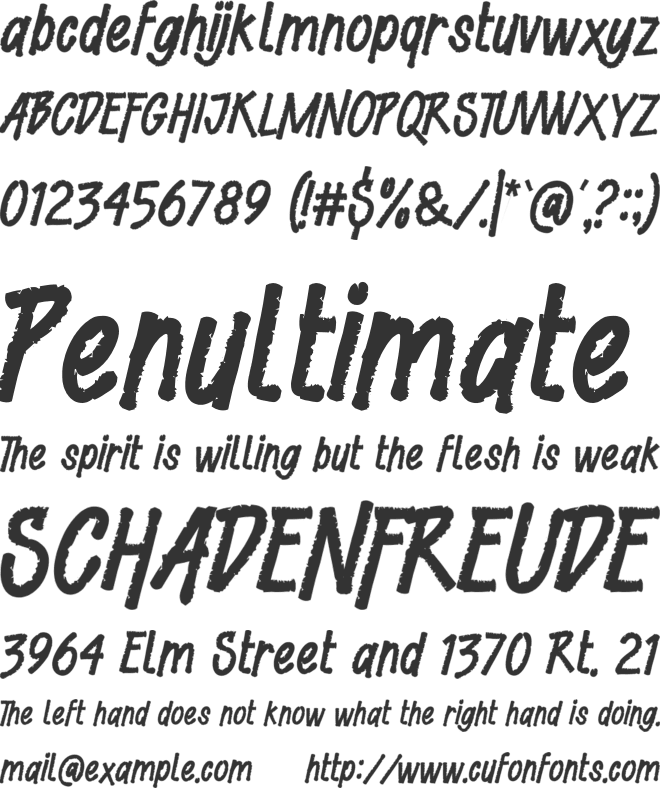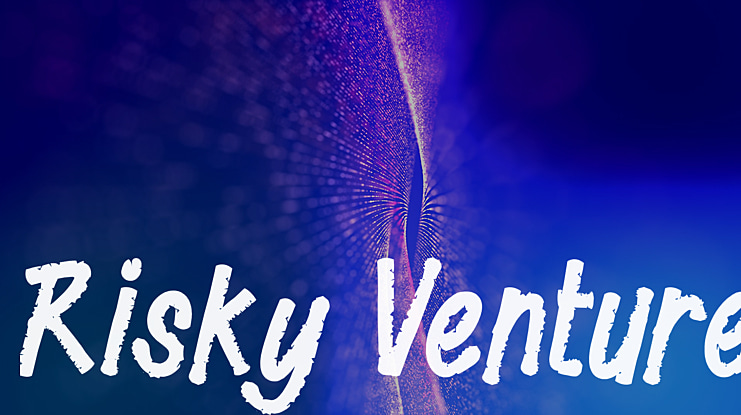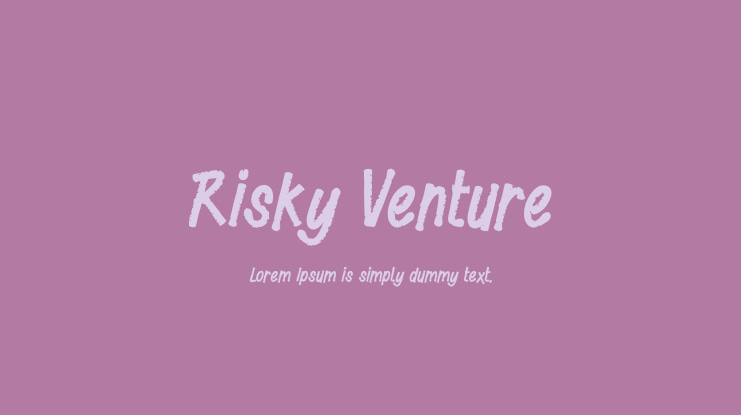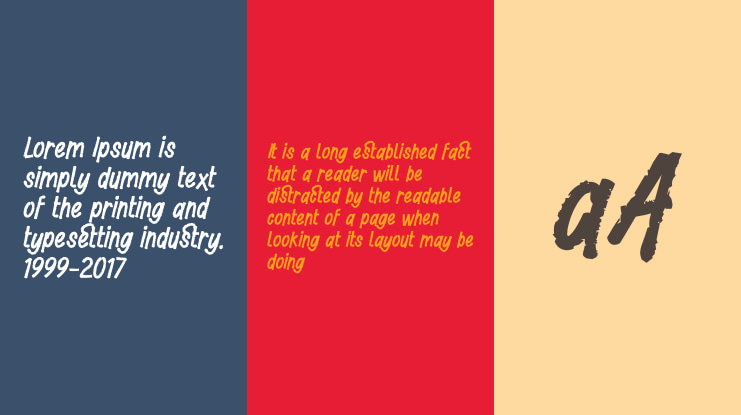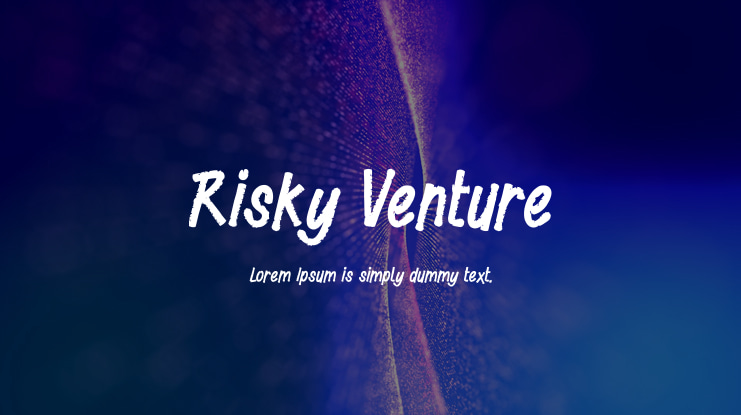
Risky Venture Font
Risky Venture is a modern brush display font, defined by a flowing and contemporary design.Fall in love with its incredibly versatile style and use it to create spectacular designs!Full Version Download Here :https://typefactory.co/product/risky-venture-display-brush/https://www.creativefabrica.com/product/risky-venture/ref/501262/